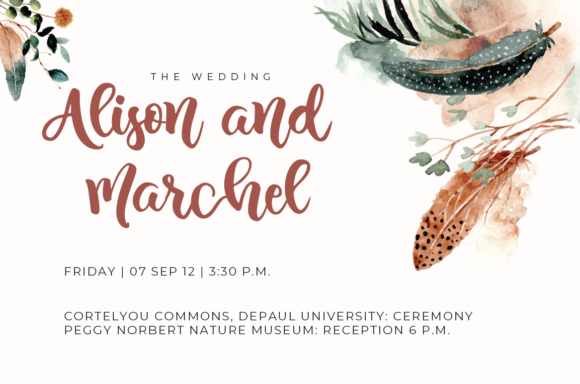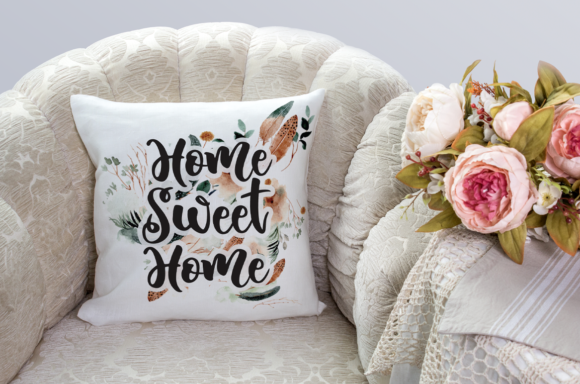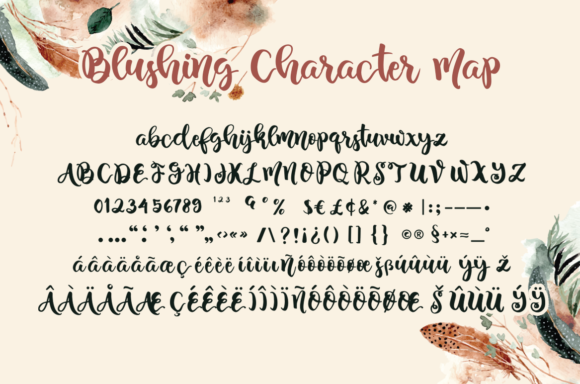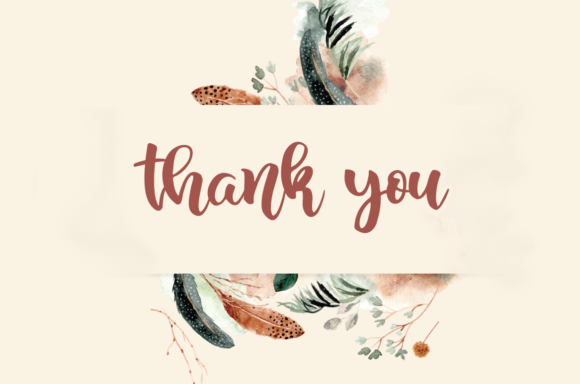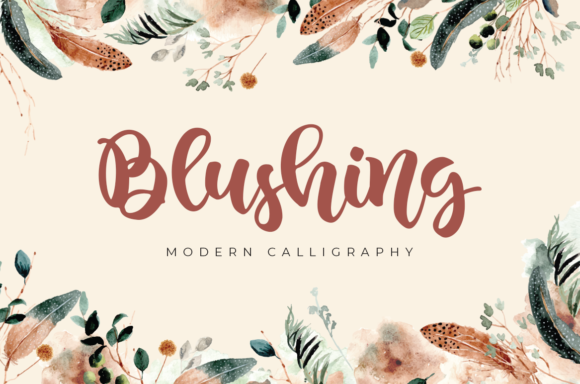
Introducing Blushing Font: The Ultimate Choice for Elegant Designs
Are you tired of using the same old fonts for your design projects? Look no further than Blushing Font, a stunning handwritten font that is sure to become your new favorite. With its perfect blend of classic calligraphic influences and modern freshness, Blushing Font is the ideal choice for designers and crafters looking to elevate their work to the highest levels.
The Story Behind Blushing Font
Blushing Font is a meticulously crafted font that boasts an exquisite handwritten style. Its creator has masterfully designed it to exude elegance and sophistication, making it perfect for a wide range of design projects. Whether you’re working on a wedding invitation, a branding campaign, or a social media graphic, Blushing Font is sure to make a lasting impression.
What Makes Blushing Font So Special?
So, what sets Blushing Font apart from other fonts on the market? Here are just a few of its standout features:
- Classy Calligraphic Influences: Blushing Font maintains a strong connection to traditional calligraphy, giving it a timeless and sophisticated feel.
- Contemporary and Fresh: Despite its classic roots, Blushing Font has a modern edge that makes it perfect for contemporary design projects.
- Handwritten Charm: The font’s handwritten style gives it a warm, personal feel that’s perfect for creating emotional connections with your audience.
- Versatile: Blushing Font is incredibly versatile, making it suitable for a wide range of design applications, from print to digital.
Blushing Font is a dream come true for designers and crafters looking to add a touch of elegance to their work. Here are just a few ways you can use Blushing Font to take your designs to the next level:
- Wedding Invitations: Create beautiful, bespoke wedding invitations that set the tone for a stylish and sophisticated celebration.
- Branding Campaigns: Use Blushing Font to create stunning brand identities that exude luxury and refinement.
- Social Media Graphics: Add a touch of elegance to your social media graphics, from Instagram posts to Facebook ads.
- Stationery and Packaging: Create gorgeous stationery and packaging that showcases your brand’s personality and style.
Tips for Using Blushing Font
To get the most out of Blushing Font, here are a few tips to keep in mind:
- Pair it with Neutrals: Blushing Font looks stunning when paired with neutral colors like white, cream, or gray.
- Experiment with Sizes: Don’t be afraid to experiment with different font sizes to create visual interest and hierarchy.
- Add Embellishments: Consider adding embellishments like flowers, leaves, or other graphics to enhance the font’s elegant feel.
In conclusion, Blushing Font is a truly exceptional font that is sure to become a favorite among designers and crafters. Its unique blend of classic calligraphic influences and modern freshness makes it perfect for a wide range of design projects. Whether you’re looking to create elegant wedding invitations, sophisticated branding campaigns, or stunning social media graphics, Blushing Font is the ultimate choice. So why wait? Fall in love with Blushing Font today and bring your projects to the highest levels!